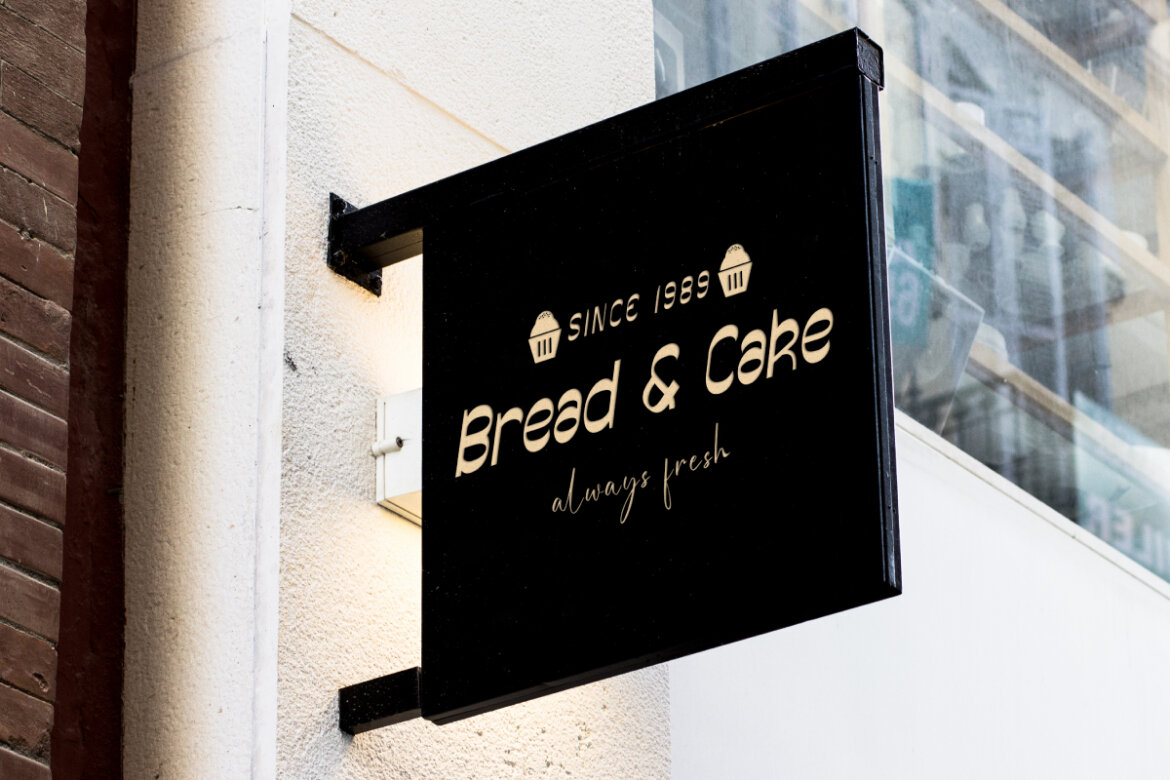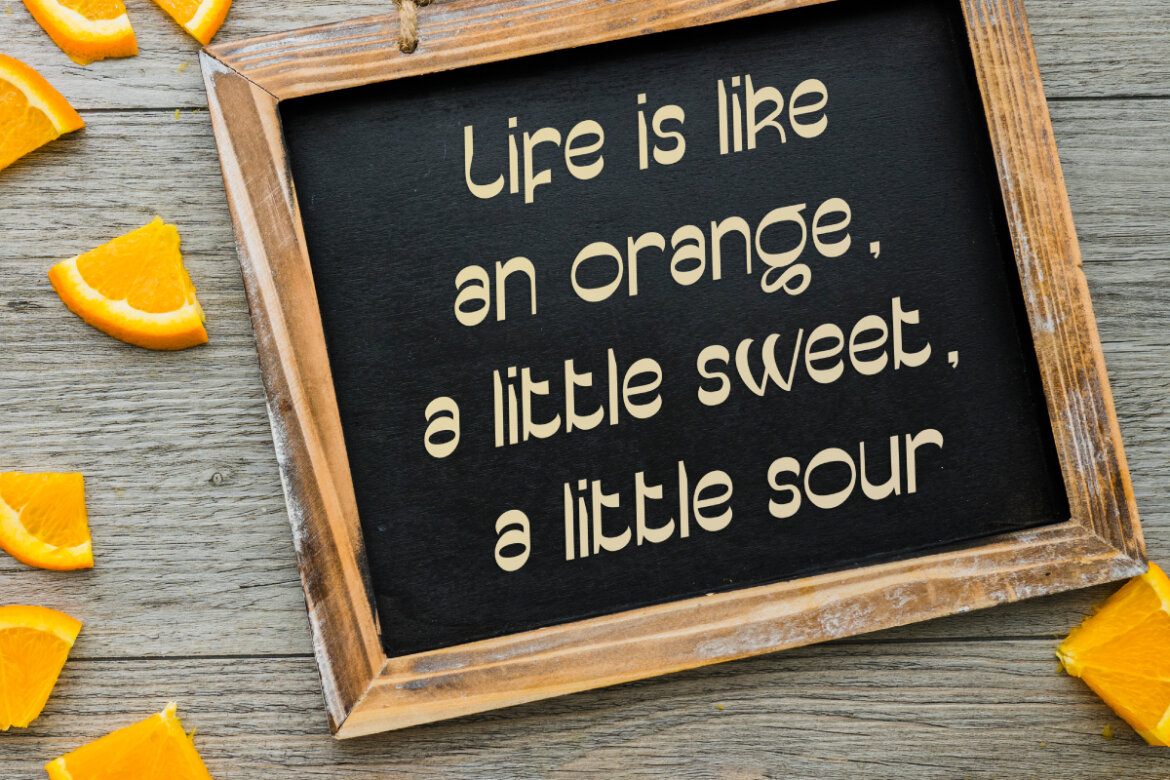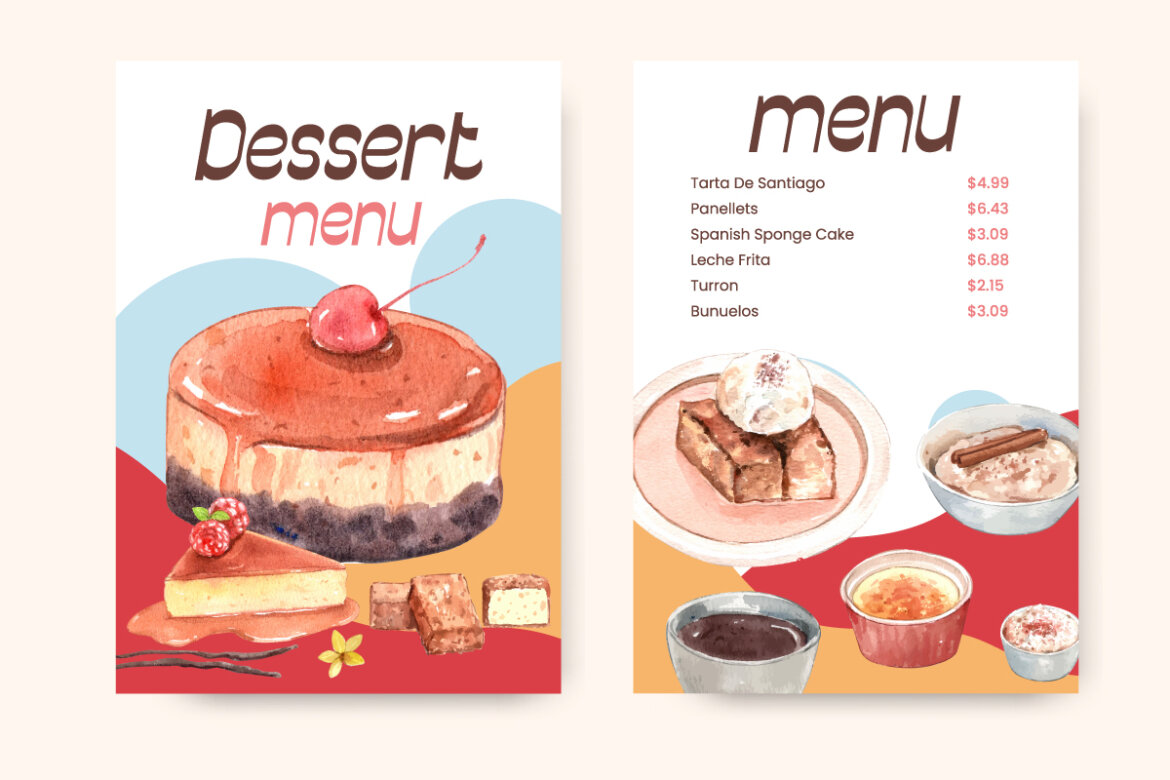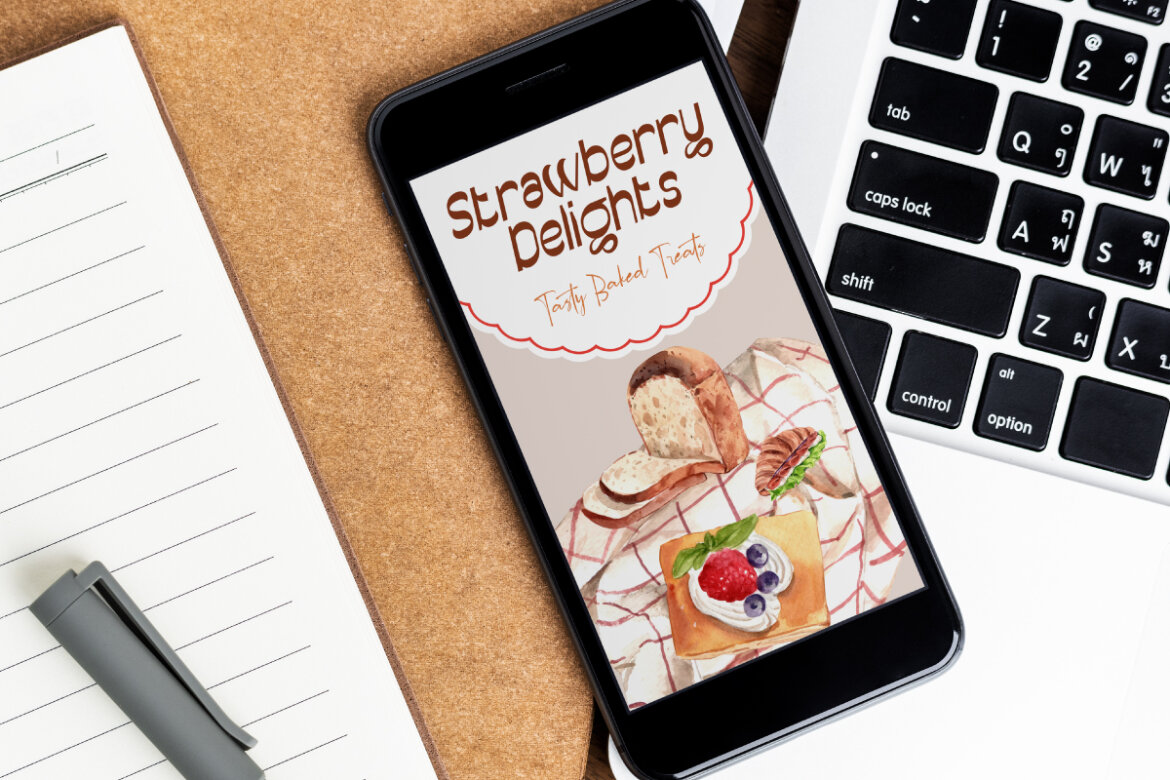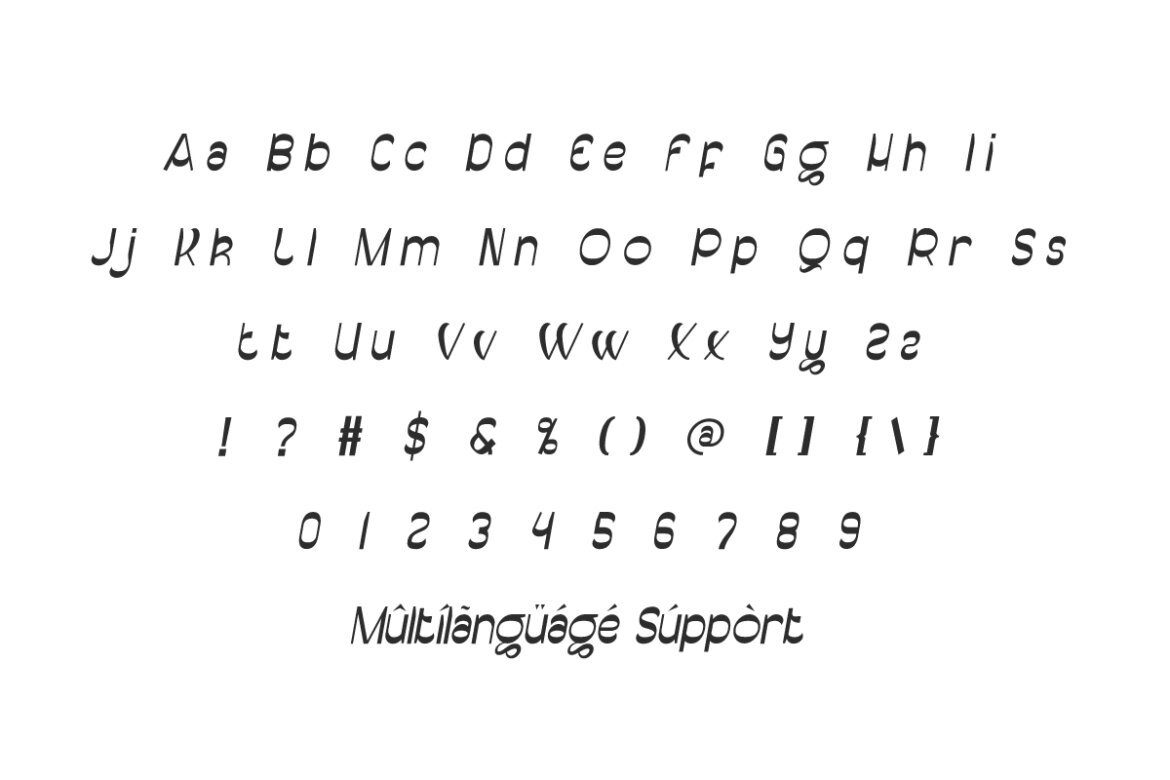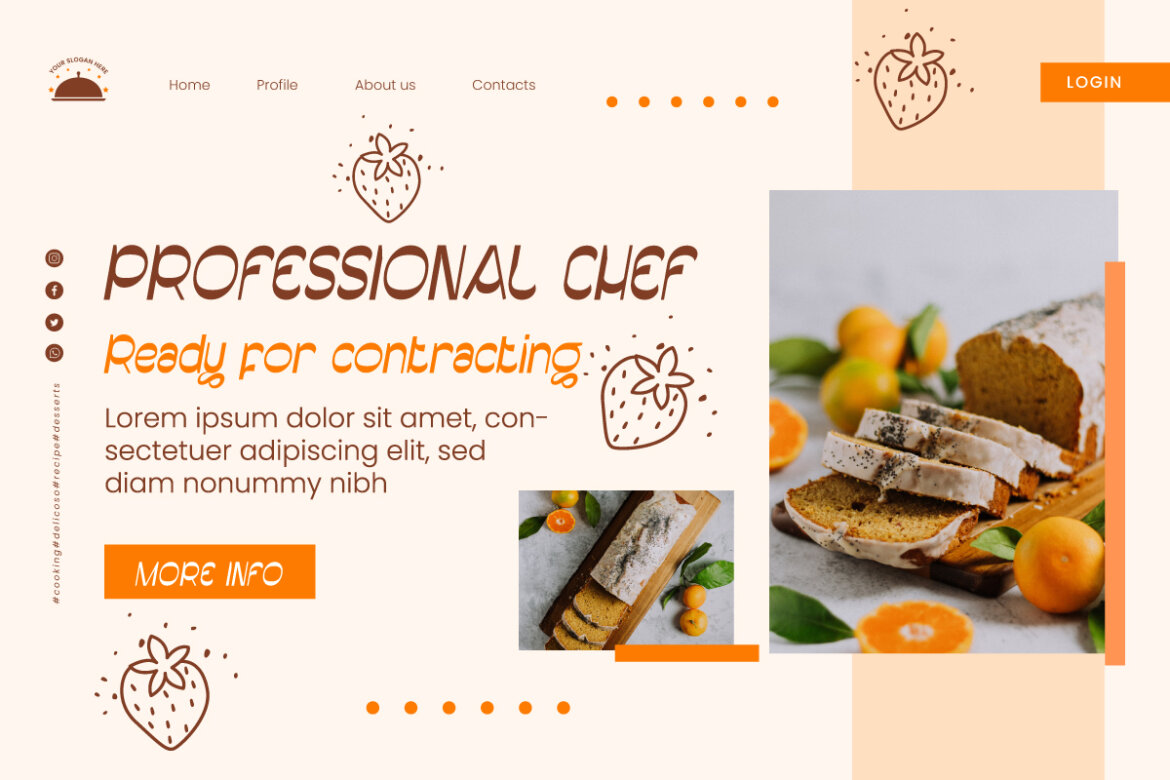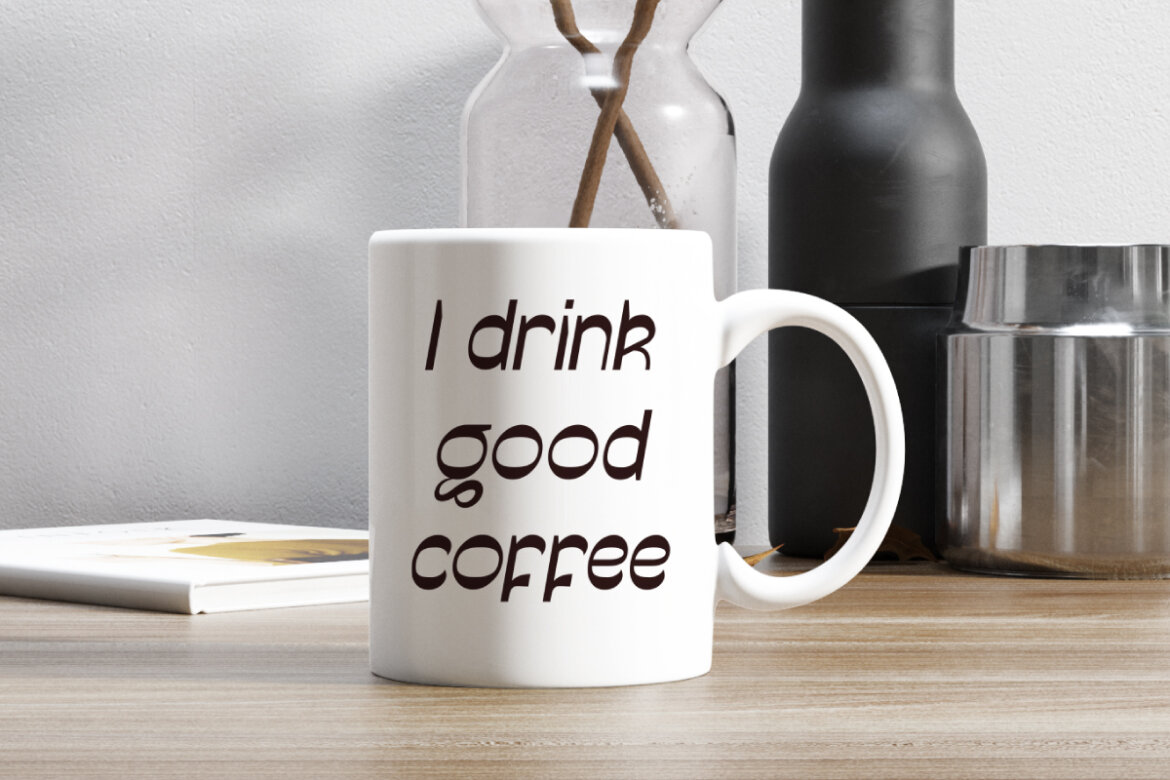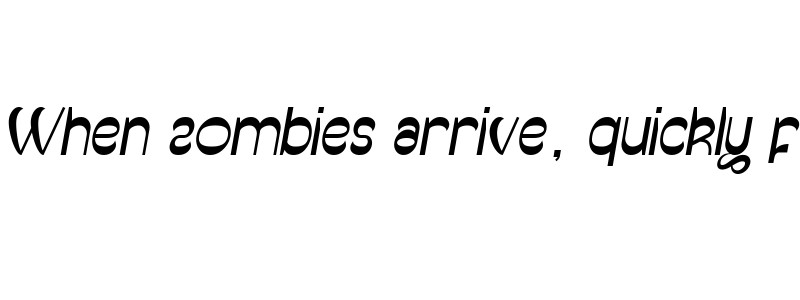
Orange Pudding FREE Font
Orange Pudding Font is a stylish modern sans serif display font that exudes a beautiful classy and elegant typeface with high contrast. This will come in handy on any of your designs, such as app header, billboard, blogs, book covers, branding logo, brochure, custom mug, flyer, labels, menu board, poster, screen print, signs, stationery, sticker, typography quote, watermarks, website headers, and more.
Orange Pudding Font includes a complete set of Basic Uppercase and Lowercase Characters, Numbers, Punctuation Marks and Symbols. This is a unique type of letter because its shape stands out in certain parts so it is not boring and presents a classic and sophisticated feel at the same time. This font collection is for adding the touch of a professional artist’s lettering to any work you can think of! Perfect for baking and pastry art, café, clothes, content creator, crockery, culinary college, fashion brand, graphic design, photography, restaurant, etc.